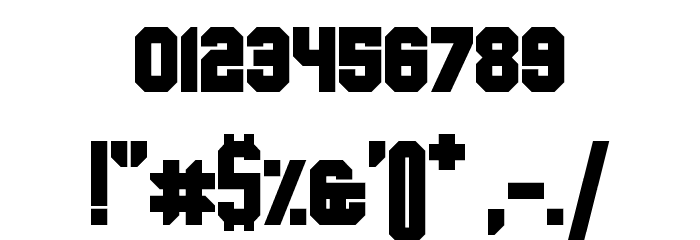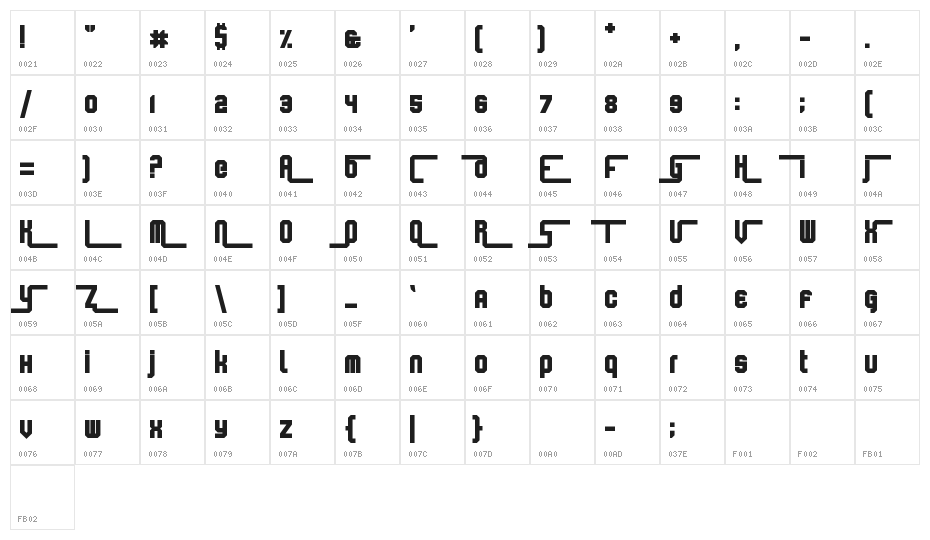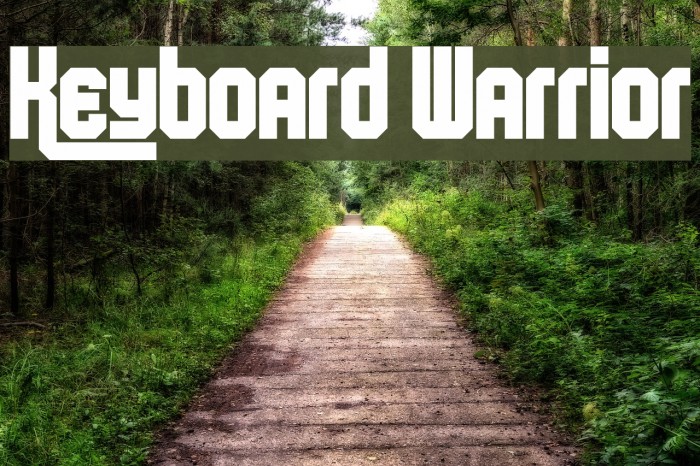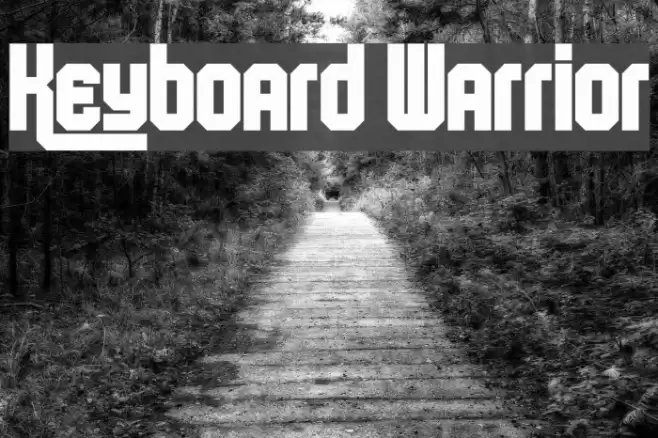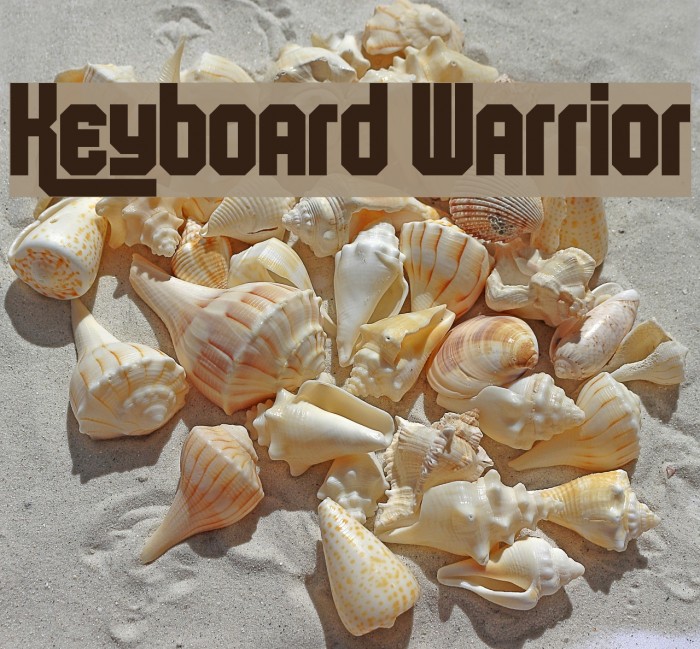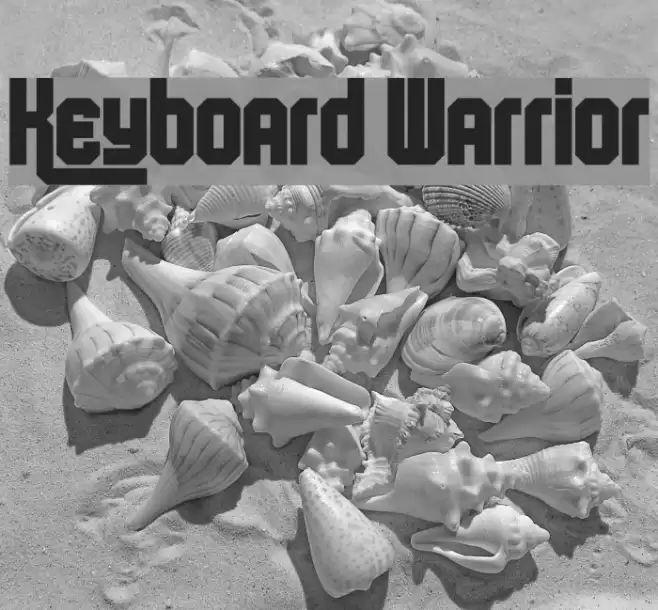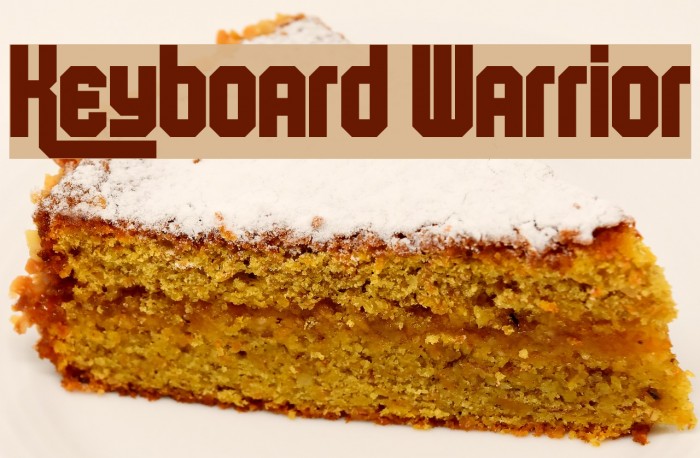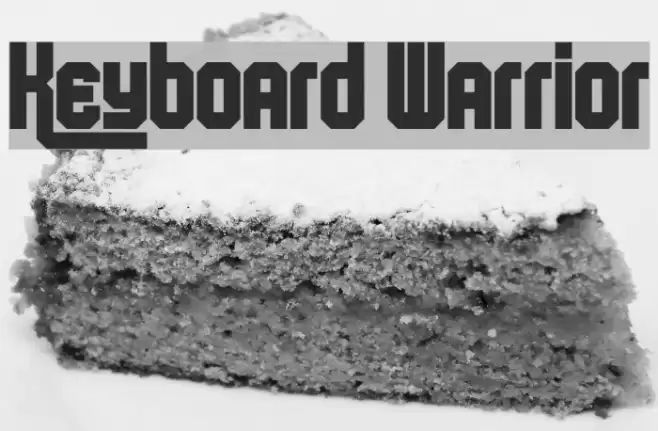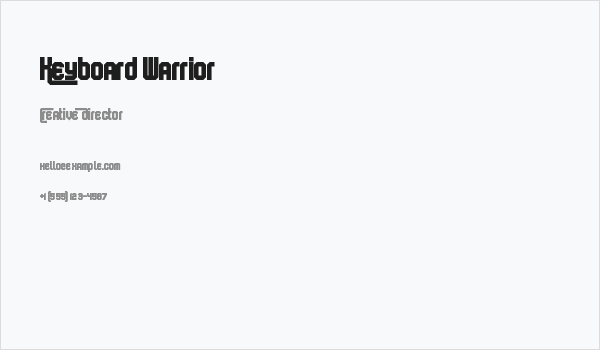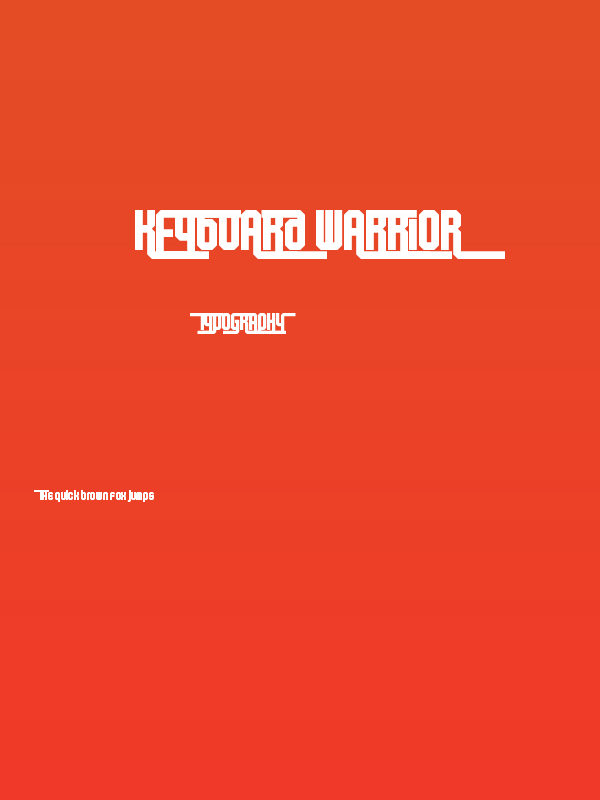
Keyboard Warrior Font
Keyboard Warrior Description
This font features a bold, geometric design with a distinctly modern and futuristic aesthetic. The characters are constructed with thick, uniform strokes and sharp angles, creating a sense of strength and stability. The uppercase letters are particularly striking, with a blocky appearance that emphasizes their geometric nature. The lowercase letters maintain the same boldness but with slightly softer edges, providing a subtle contrast. Numbers and special characters are designed to match the overall style, ensuring consistency across all elements. The font's unique structure makes it ideal for projects that require a strong visual impact.